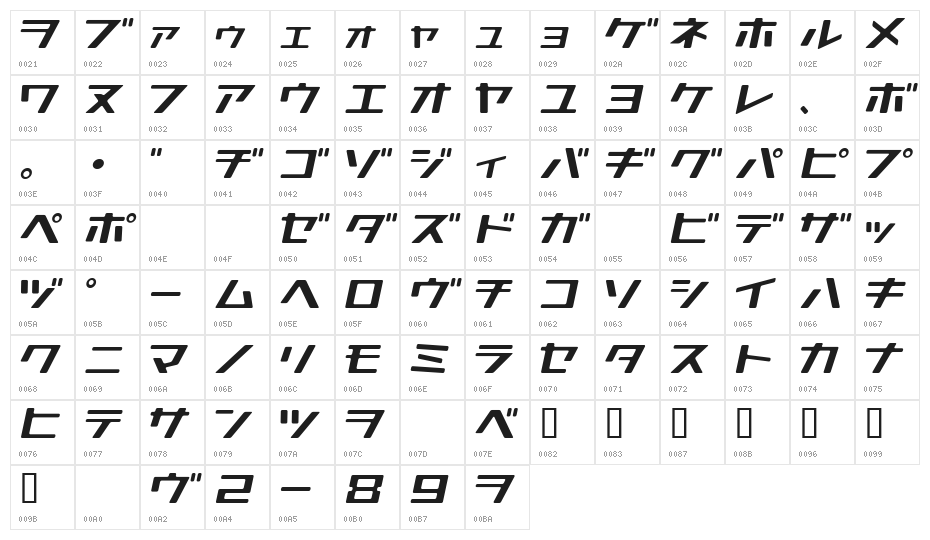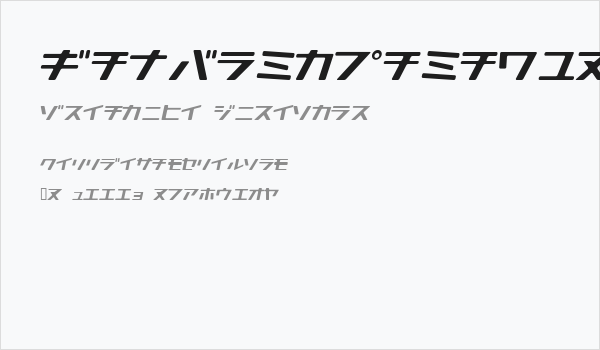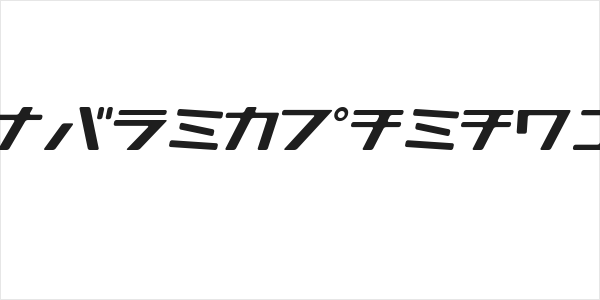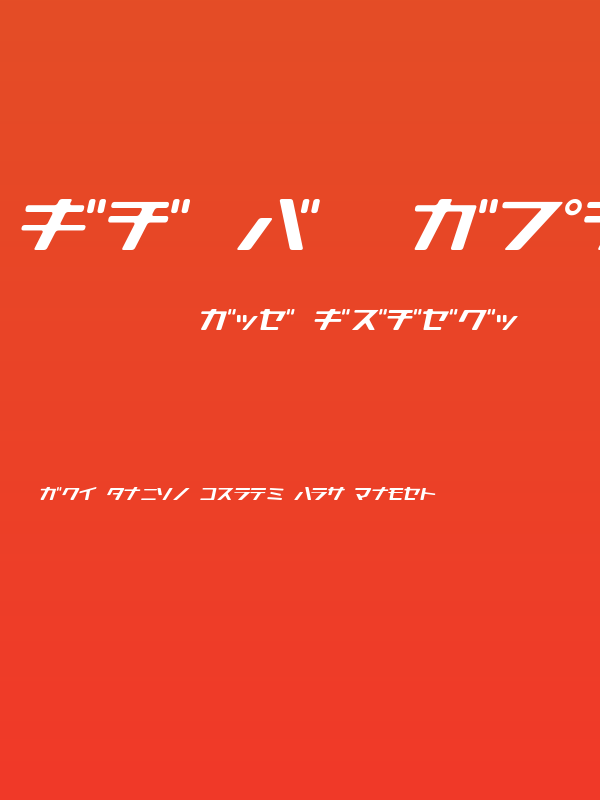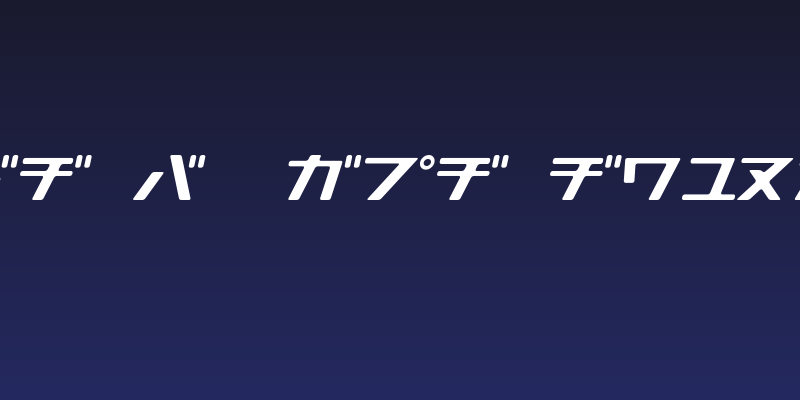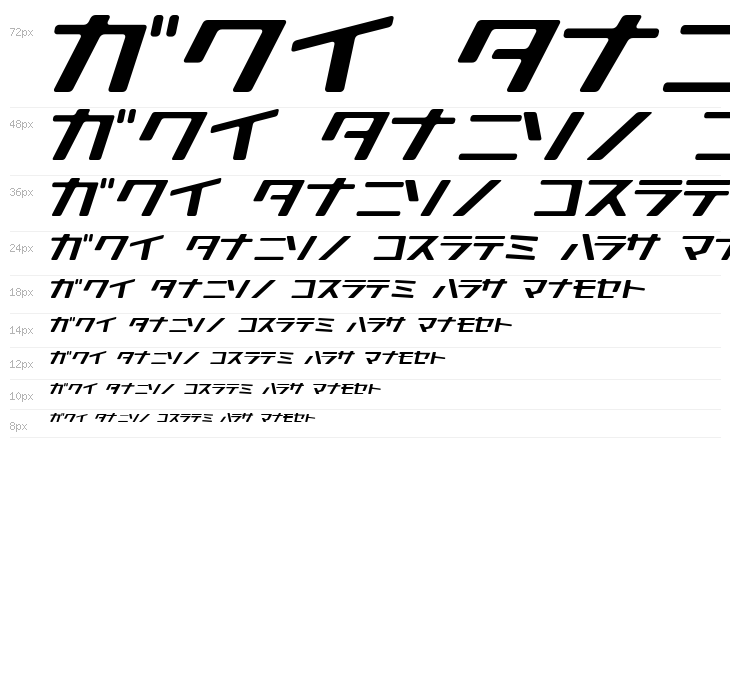
GauFontKana0816 Font
GauFontKana0816 Description
This font features a bold and dynamic style with sharp angles and a futuristic appearance. The characters are designed with a strong geometric influence, giving them a sleek and modern look. The strokes are consistent in weight, contributing to a uniform and cohesive appearance across all characters. The font is highly legible, with distinct shapes that make each character easily recognizable. It is particularly well-suited for digital and technology-related projects due to its contemporary aesthetic.
| Proposed Projects | Ideal for technology branding, digital interfaces, video game titles, and futuristic-themed designs. |